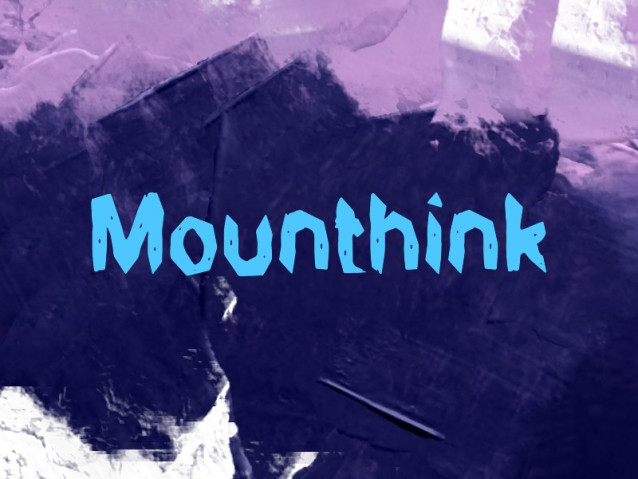
Mounthink Font
Mounthink Font is a bold and expressive display font inspired by the raw beauty of nature and the rugged charm of mountainous landscapes. With its hand-drawn, slightly irregular letterforms, Mounthink brings a sense of adventure, creativity, and authenticity to any design.
This font is perfect for eye-catching headlines, posters, branding projects, outdoor-themed designs, and creative digital content. Its playful yet strong character makes it stand out while still maintaining readability.
Whether you’re designing for travel, lifestyle, or artistic projects, Mounthink adds a unique and energetic touch that captures attention and leaves a lasting impression.